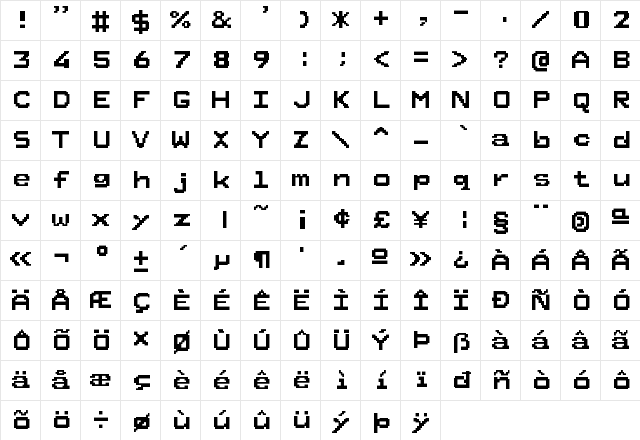
Spanish Teletext Regular Free Font
Spanish Teletext Regular
Foundry: The Grandoplex Project
Designer: Jayvee Enaguas (GrandChaos9000)
Design Context for Spanish Teletext
Spanish Teletext is a composed and adaptable typeface that performs quietly and consistently across a wide range of design contexts.